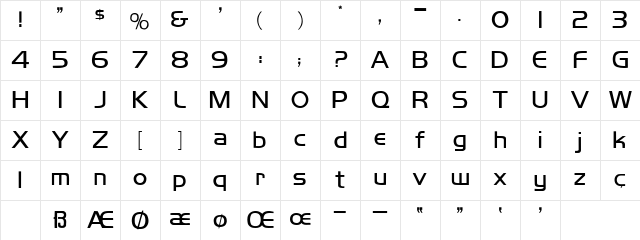
Koshgarian Light Free Font
Koshgarian Light
Design Context for Koshgarian
Koshgarian is a composed and adaptable typeface that performs quietly and consistently across a wide range of design contexts. Its slender proportions lend an understated elegance to any composition.